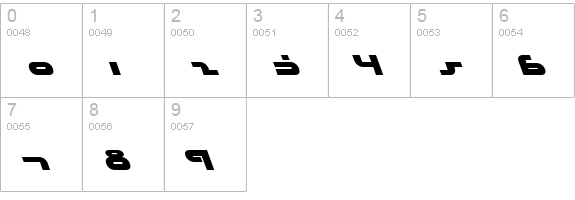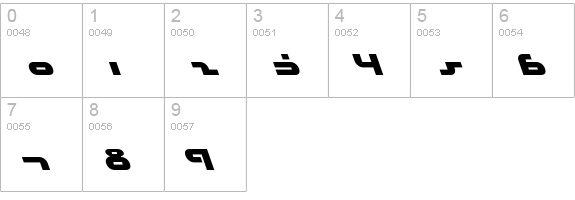
uni-sol leftalic Font Details
Introducing Uni-Sol Leftalic font, a sleek and modern typeface that exudes sophistication and elegance. Its unique left-leaning italic style adds a touch of creativity to any design project. Designed with precision and attention to detail, Uni-Sol Leftalic is the perfect choice for branding, editorial design, and more. What sets Uni-Sol Leftalic font apart is not only its striking appearance but also its versatility. Whether used in headlines or body text, this font maintains clarity and readability while making a bold statement. Its clean lines and smooth curves give a polished and professional look to any design. And the best part? Uni-Sol Leftalic font is completely free to download at FontsMarket.com. Now you can enhance your projects with this stunning typeface without breaking the bank. Don't miss out on this opportunity to add a touch of sophistication to your designs with Uni-Sol Leftalic font. Download it today and elevate your typography game!